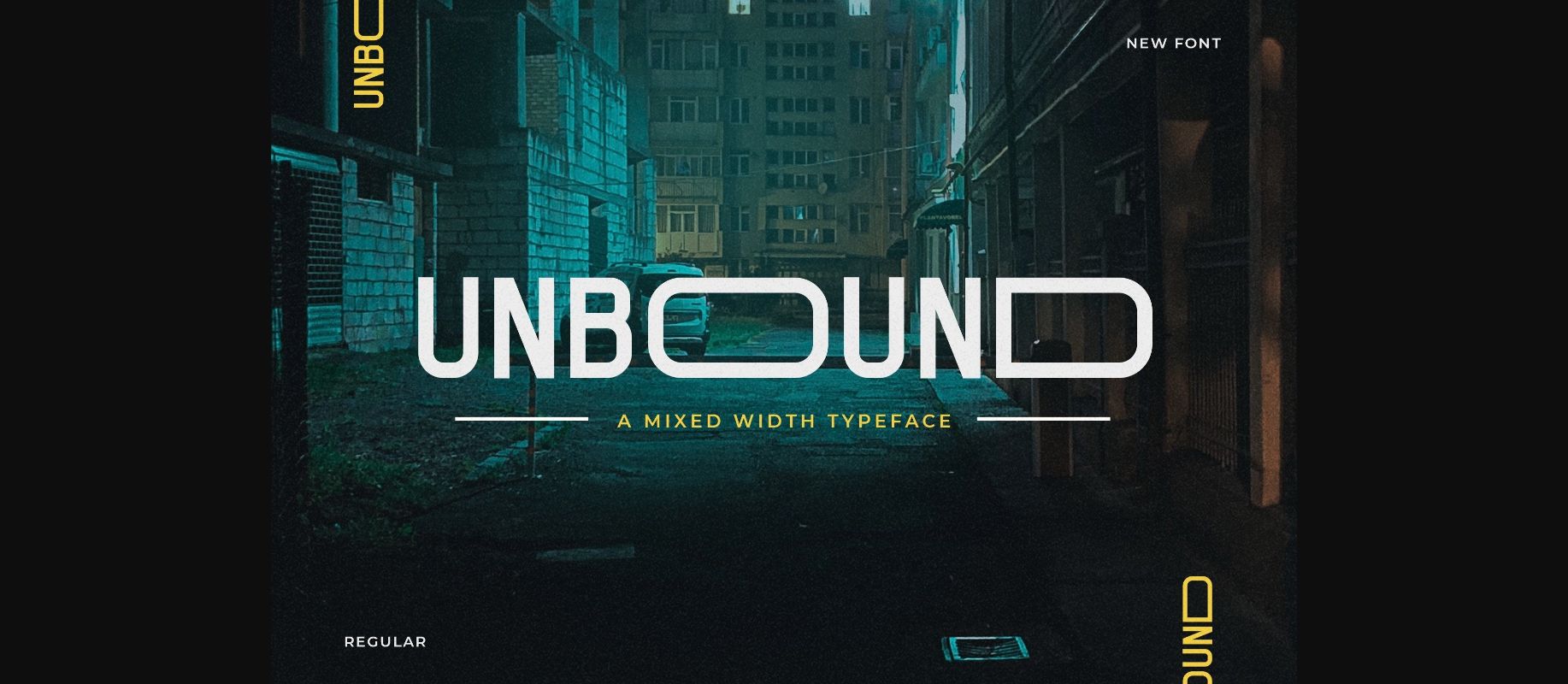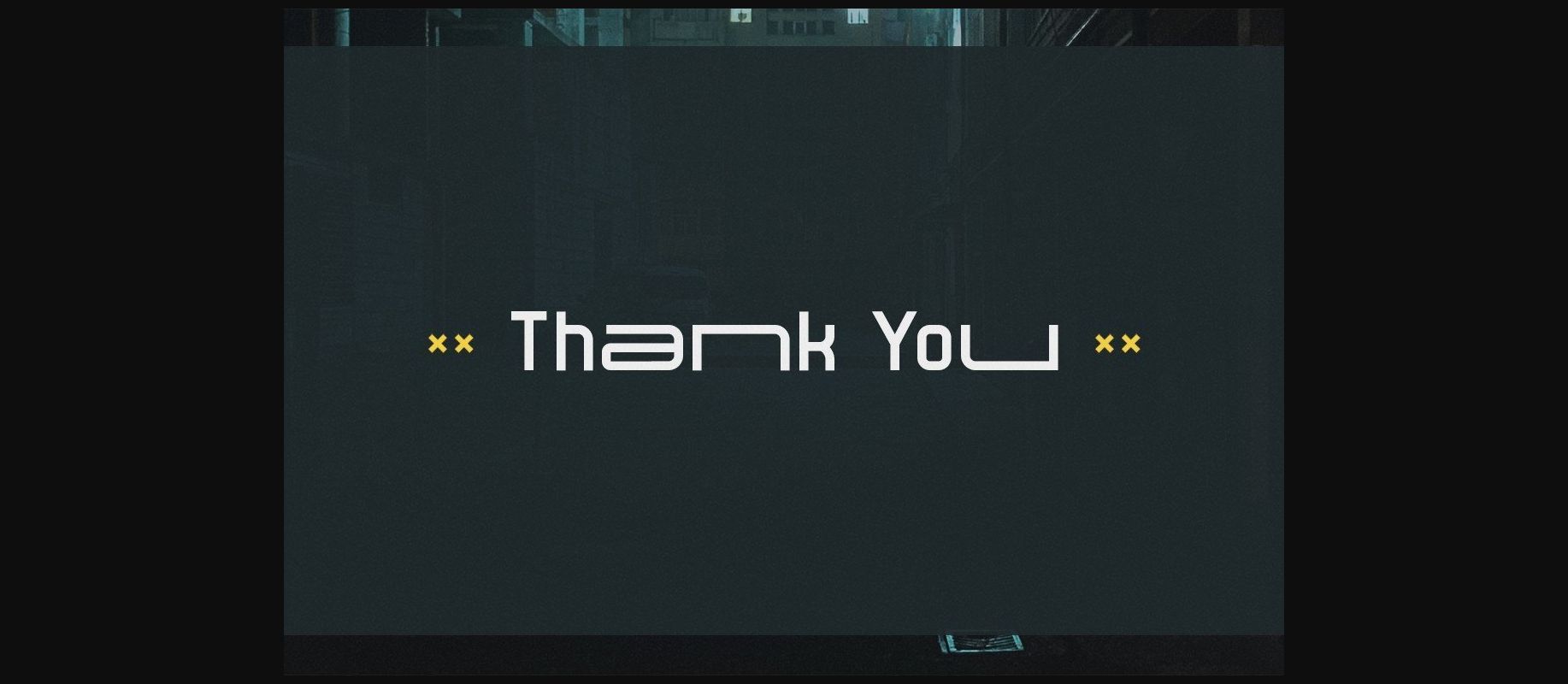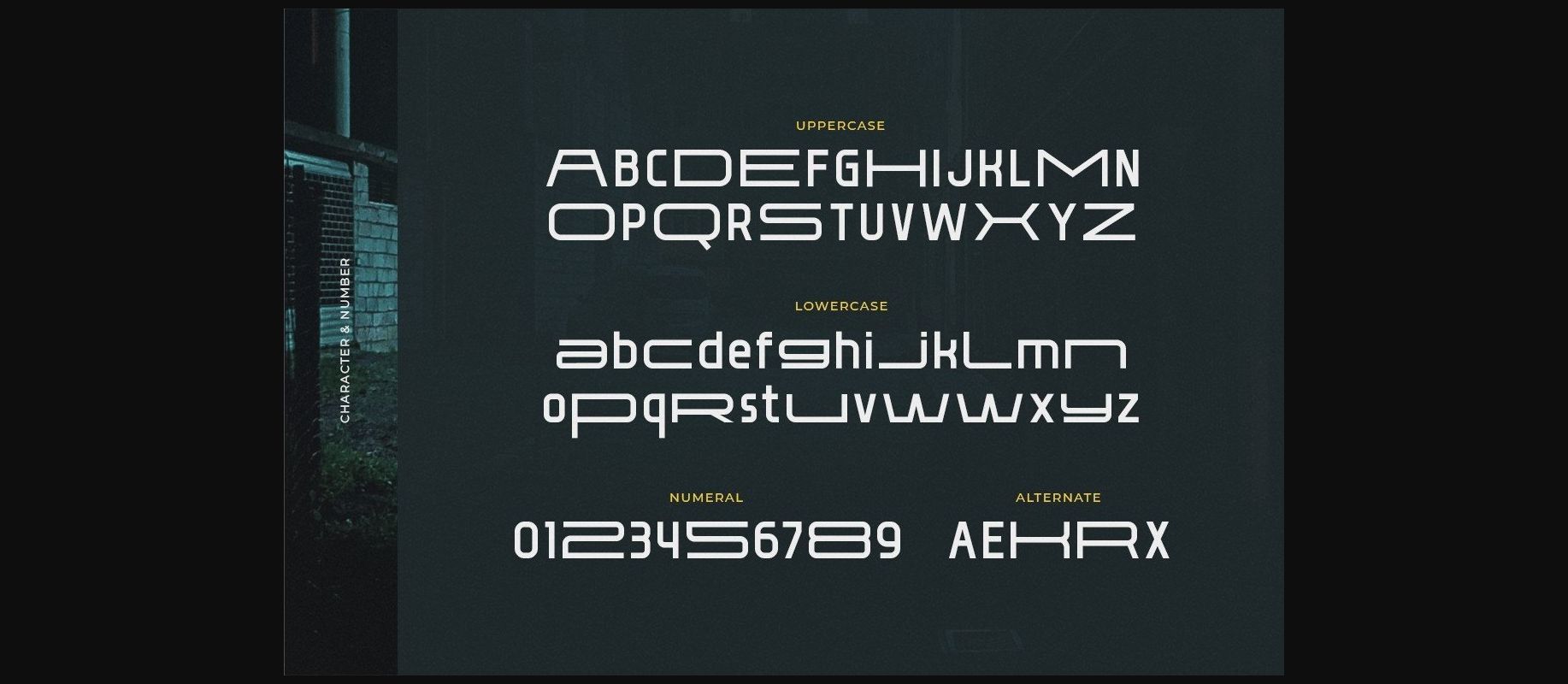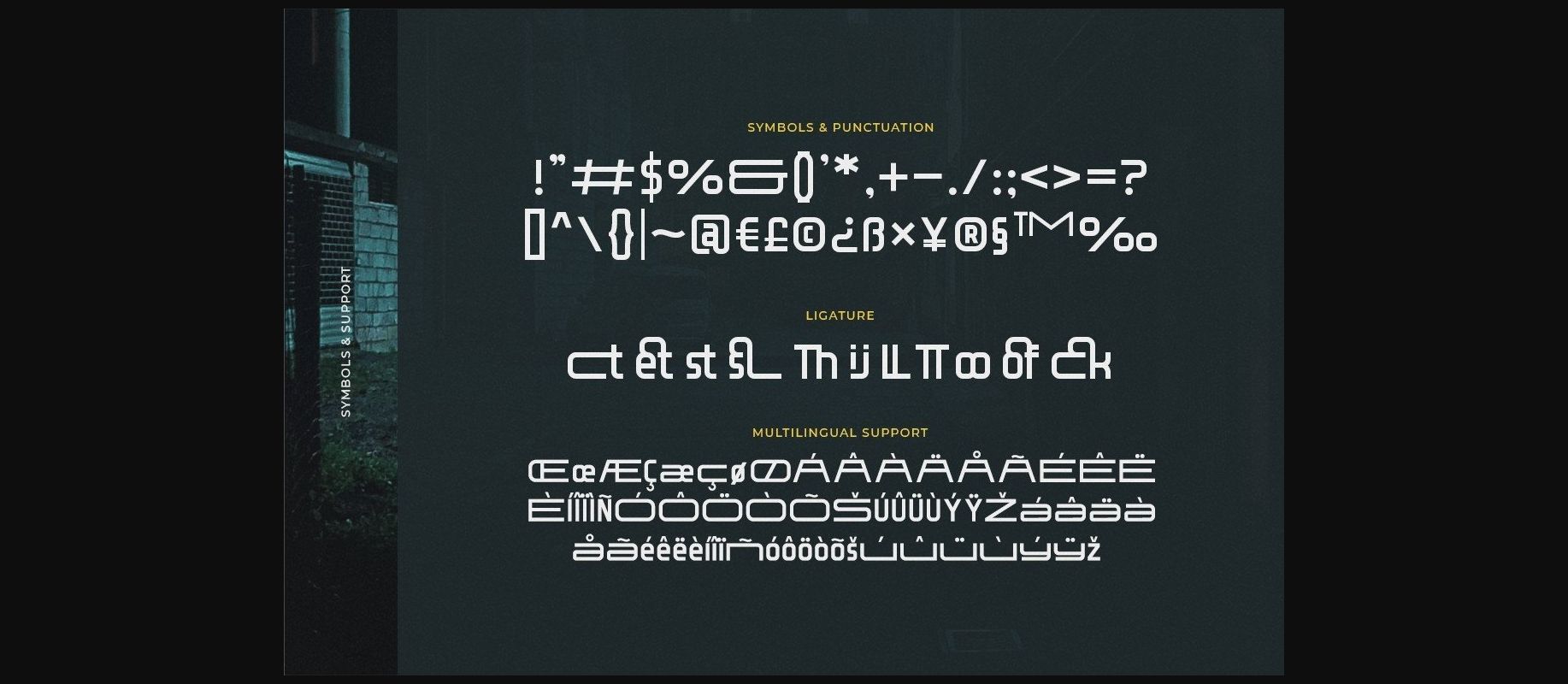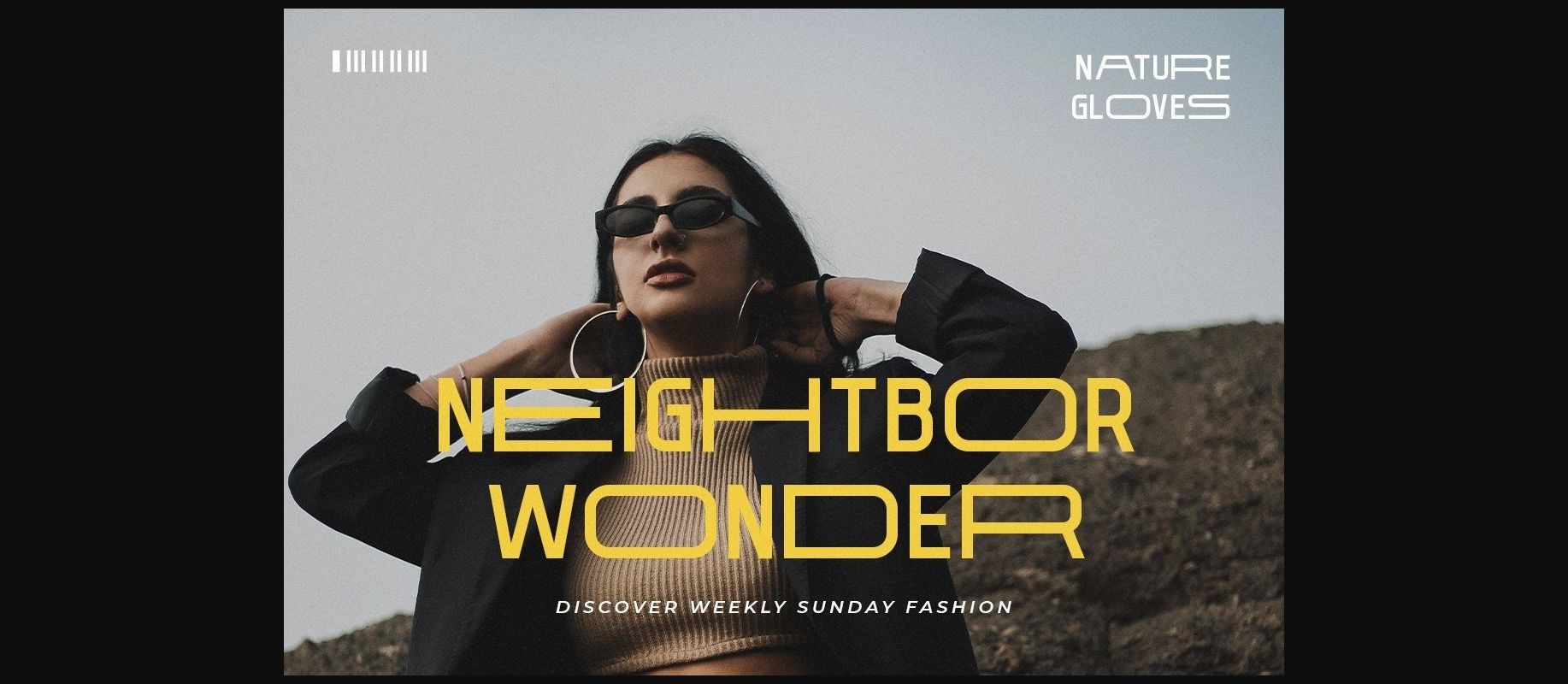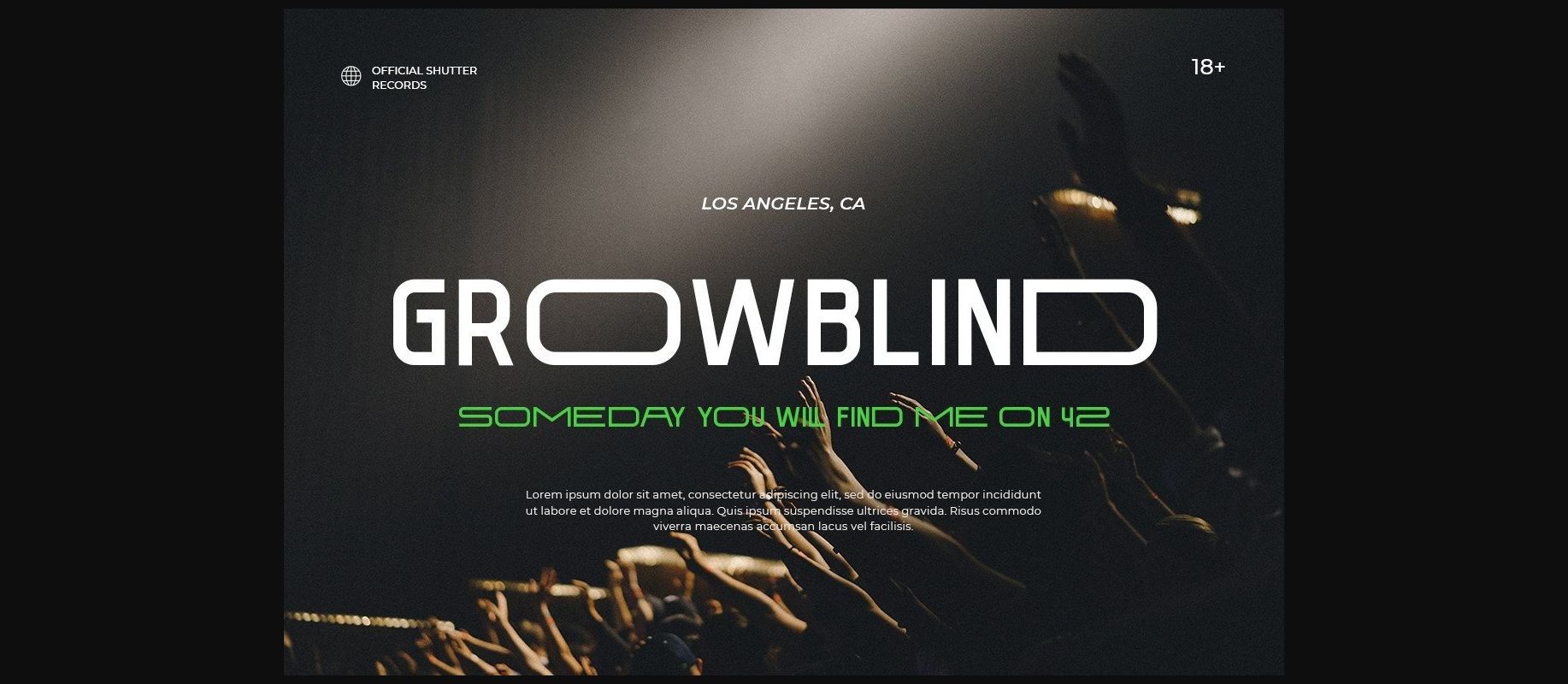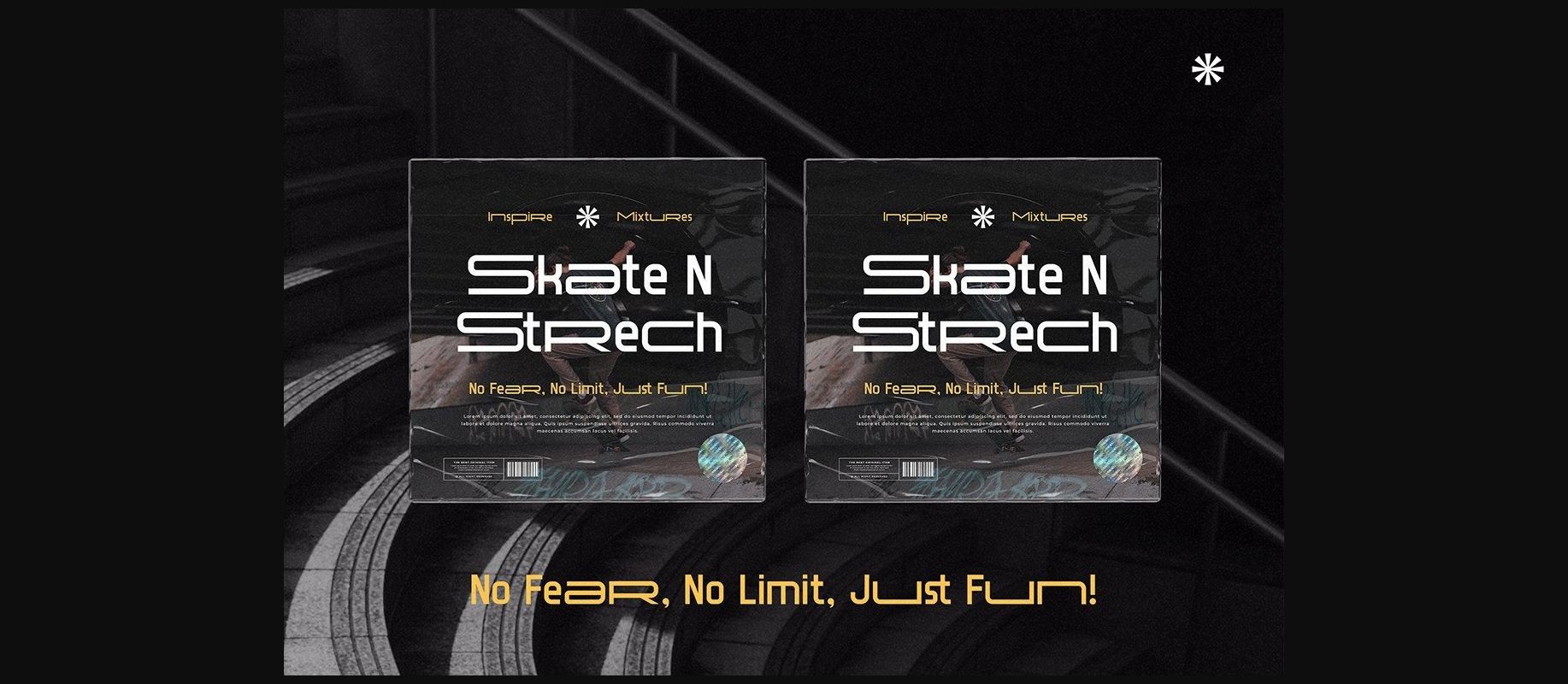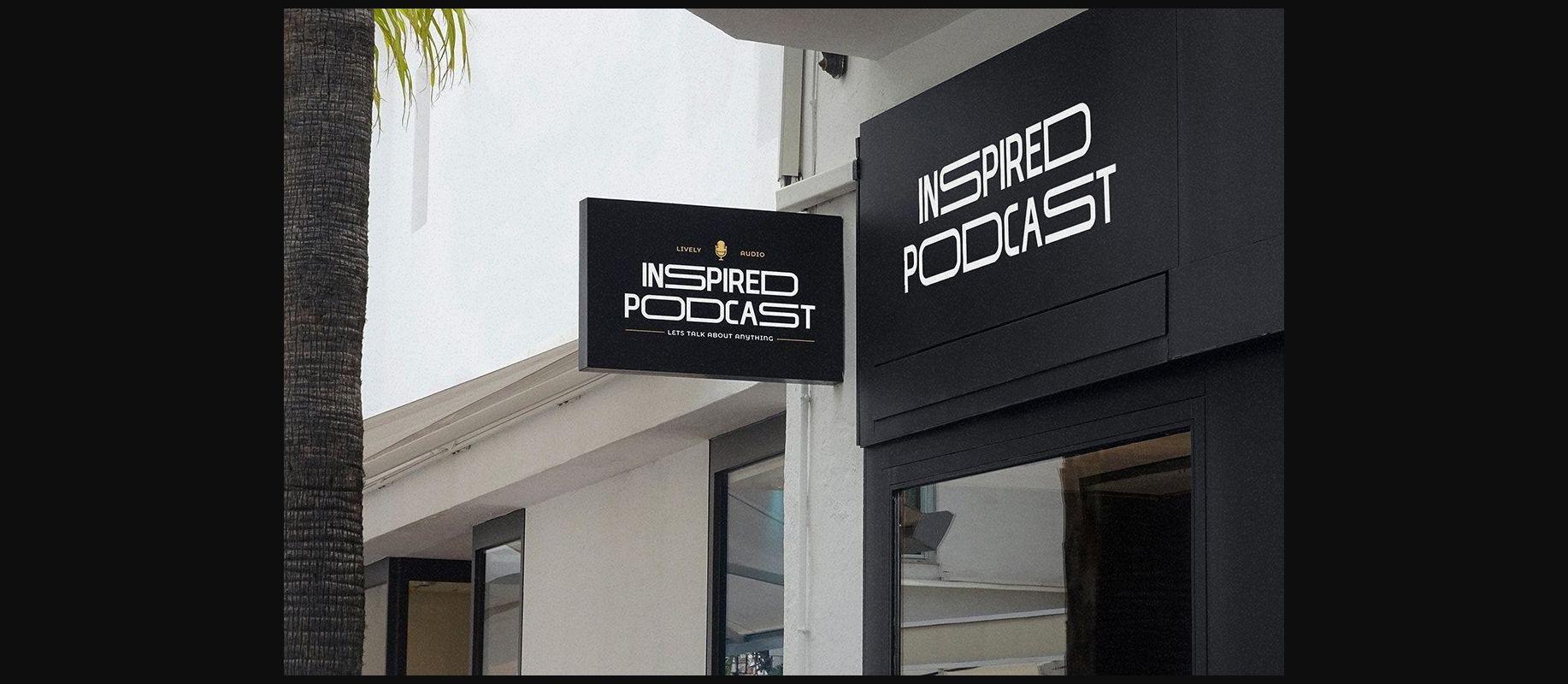
About Unbound Font
Unbound is a mixed width typeface.
This mixed-width set of characters looks modern on business cards, but also as a headline for posters, websites, and so much more.